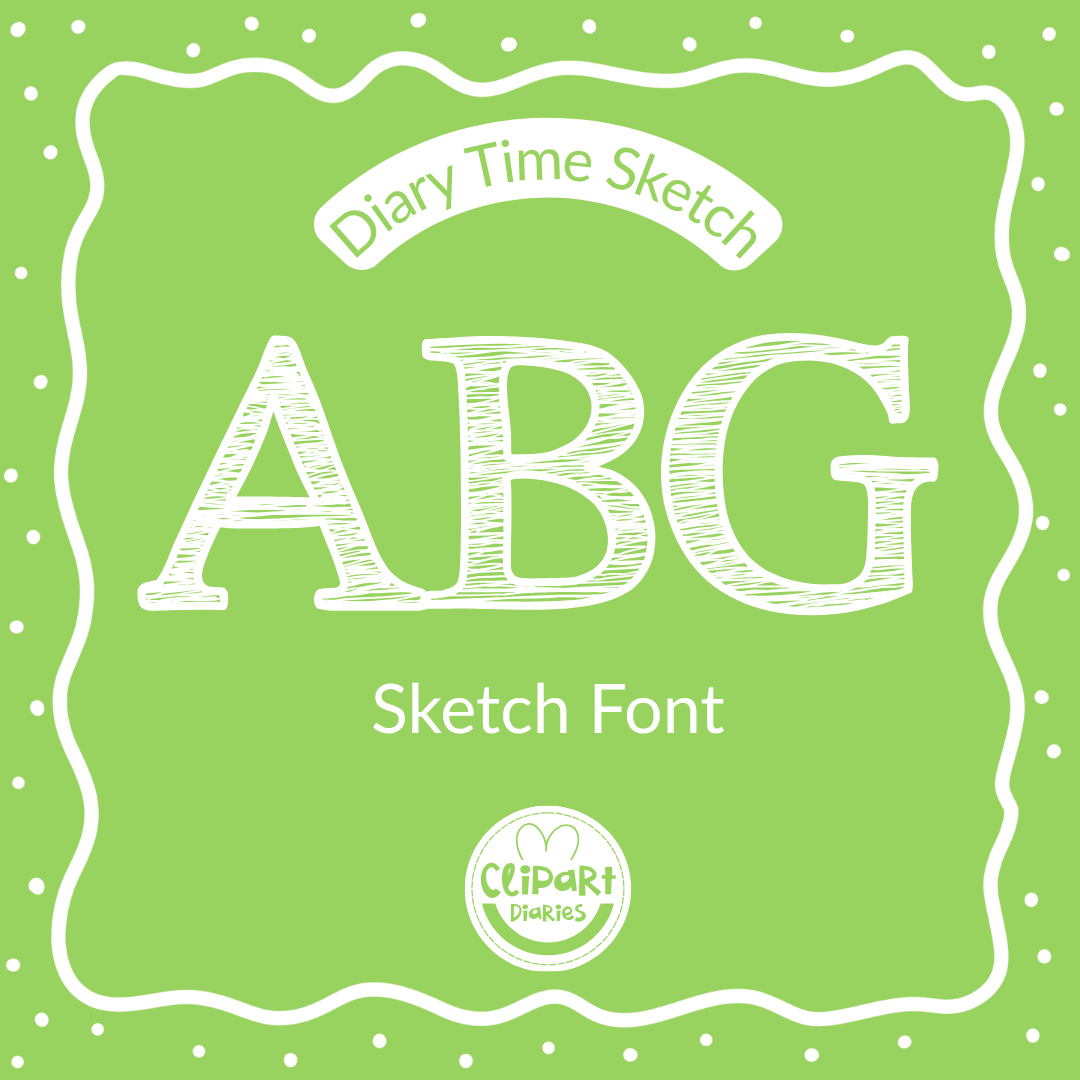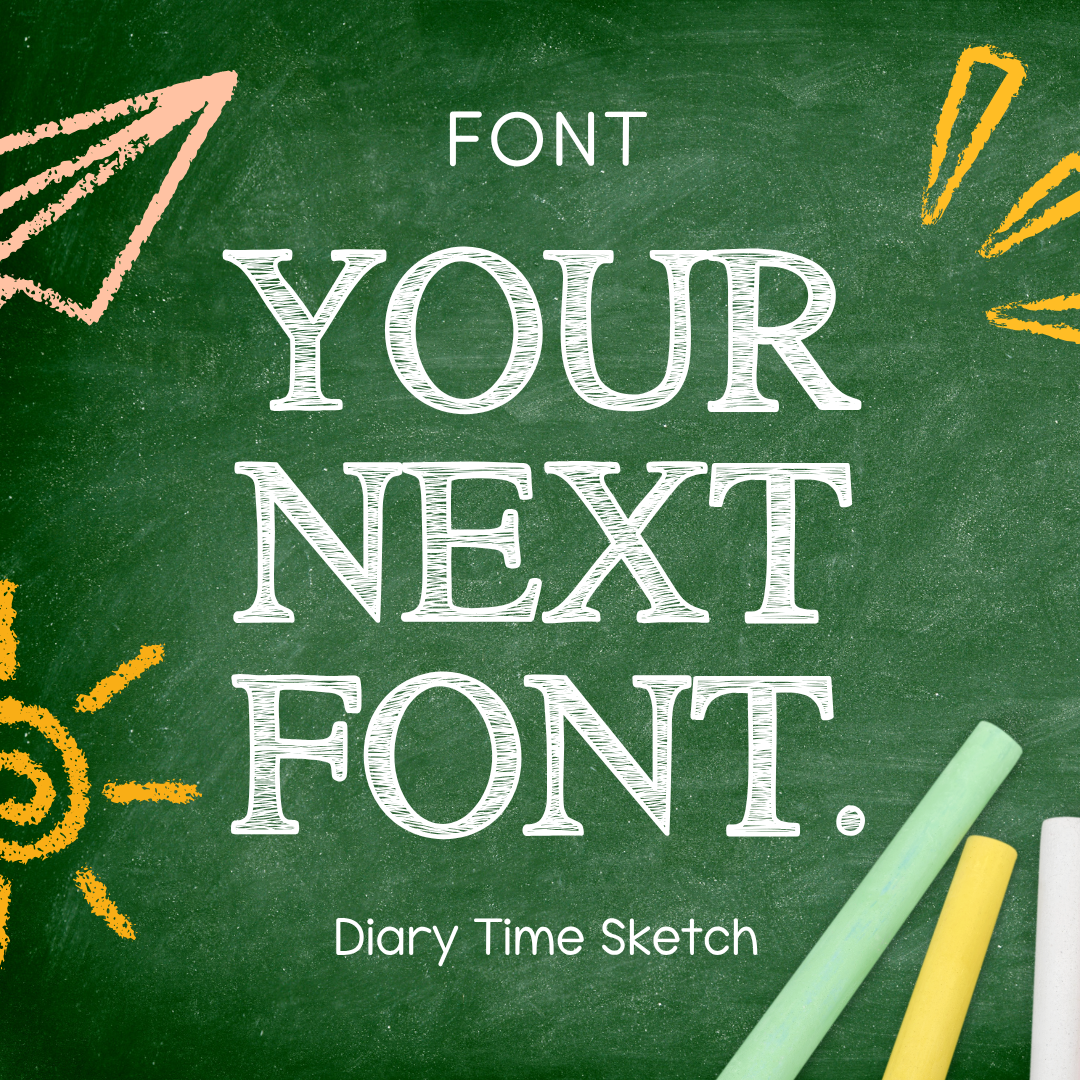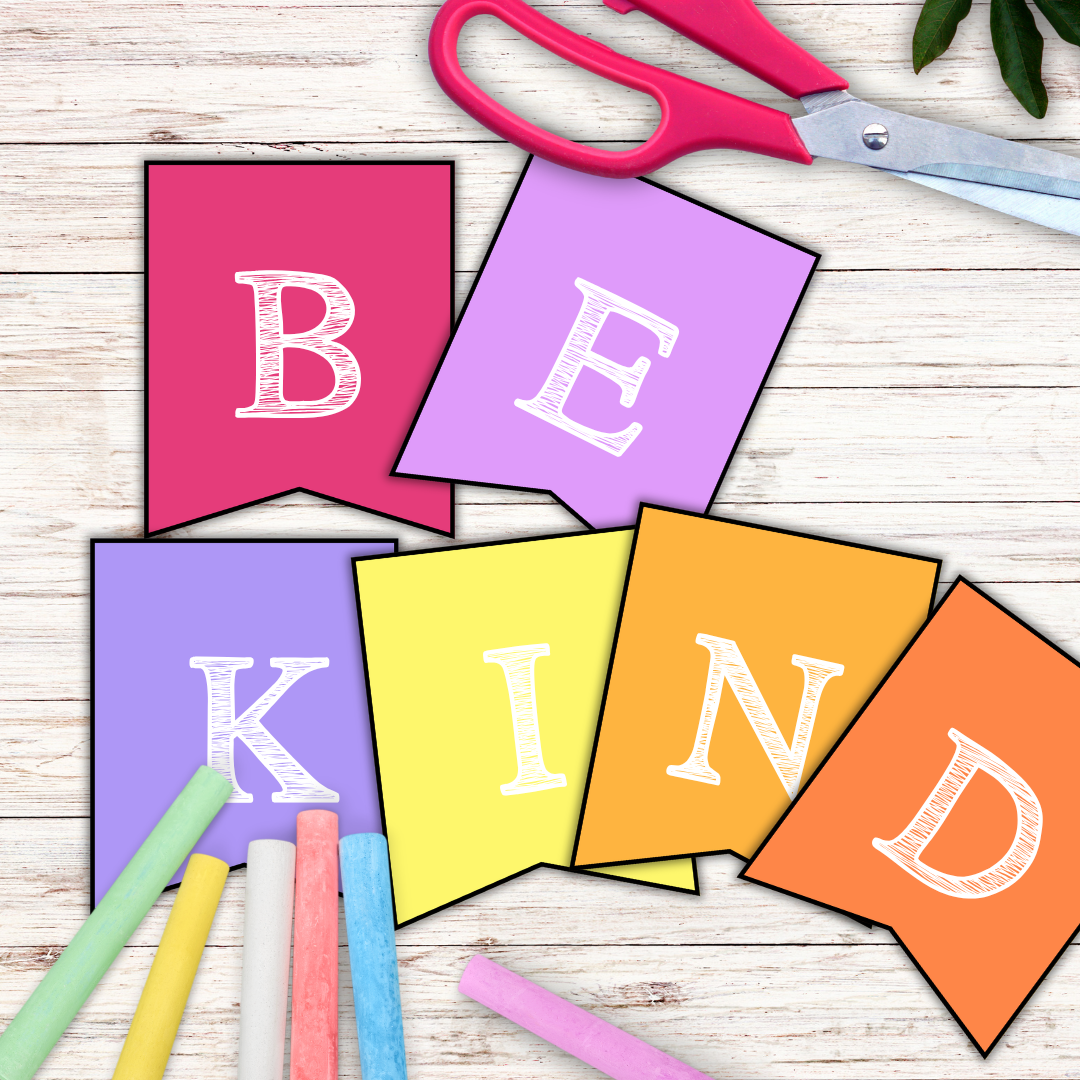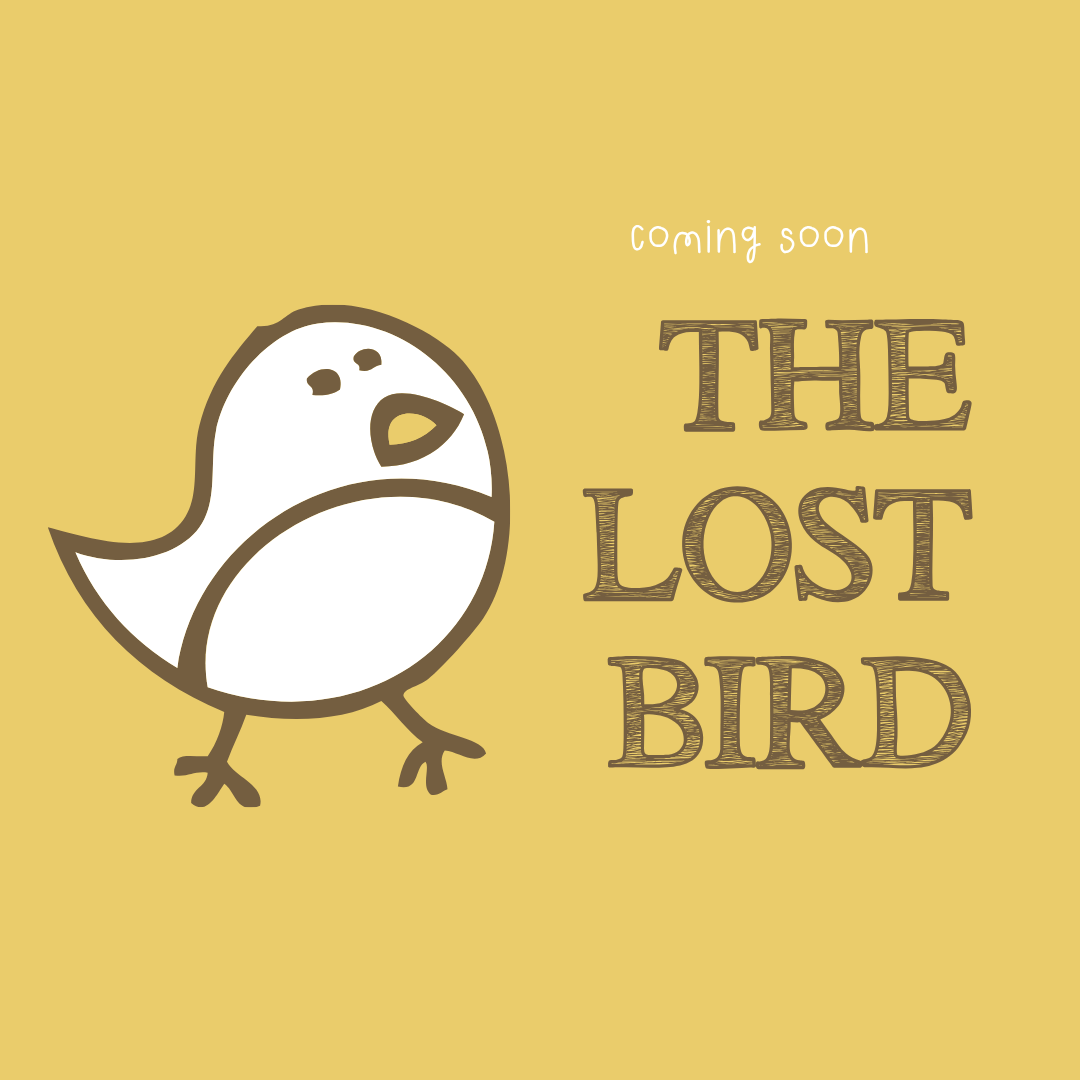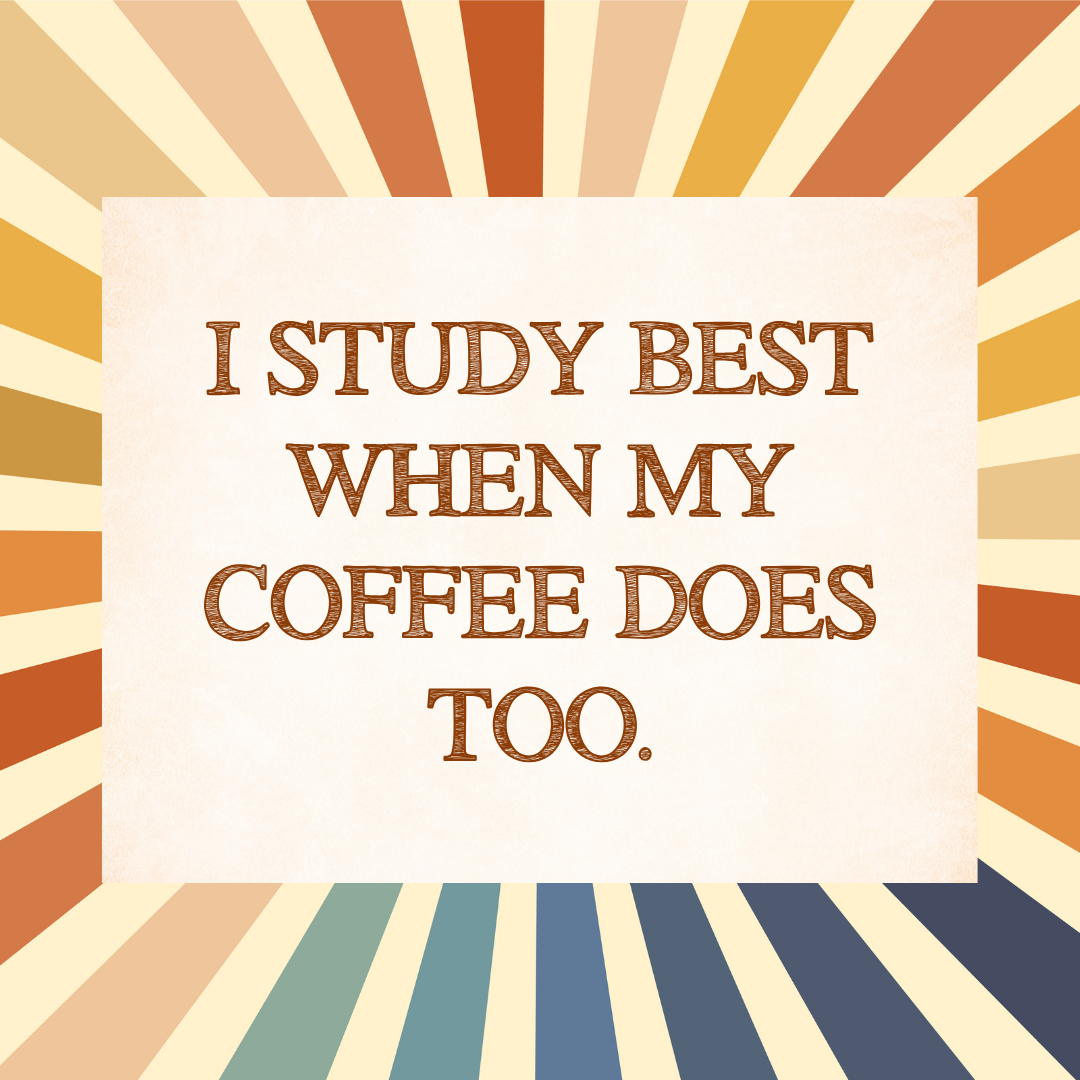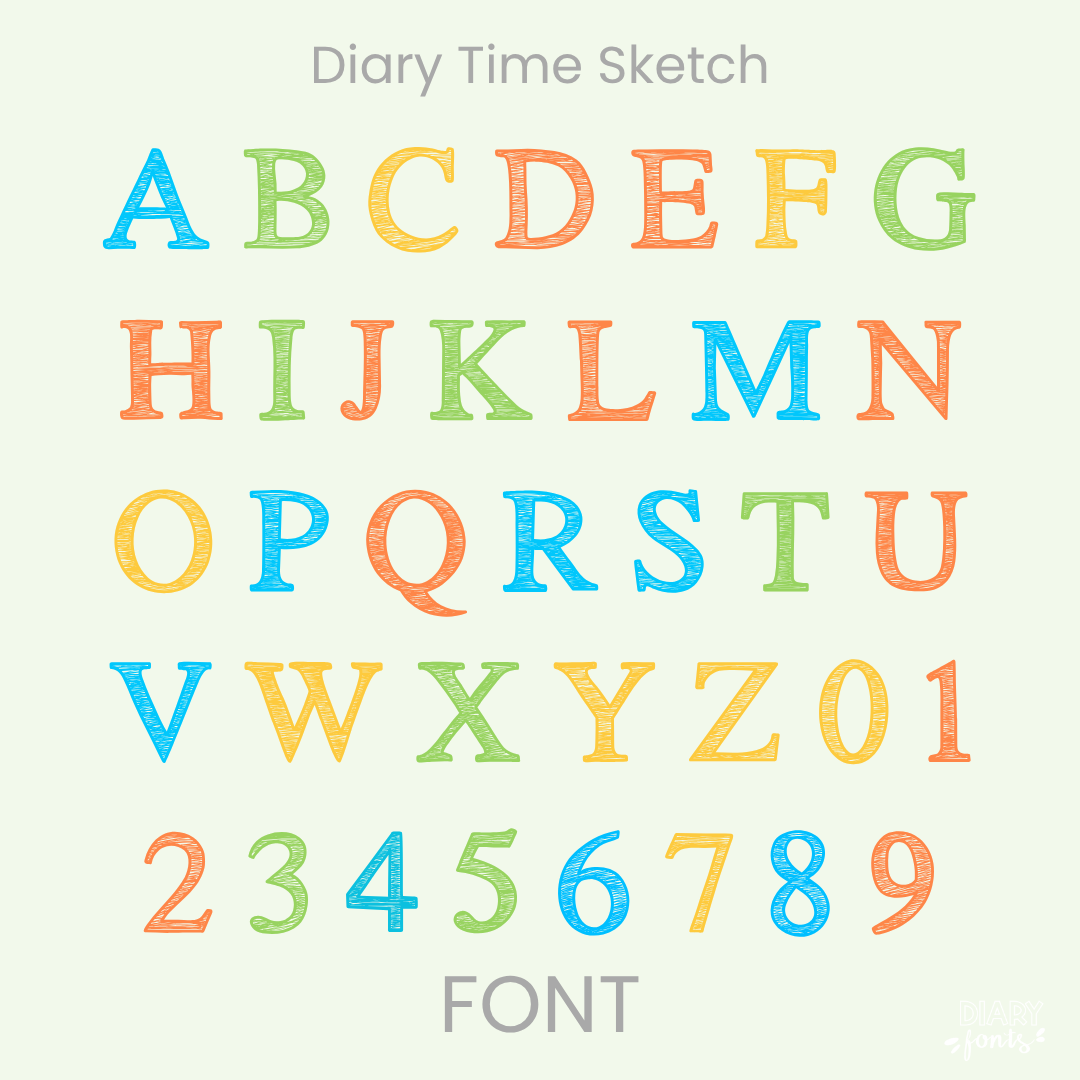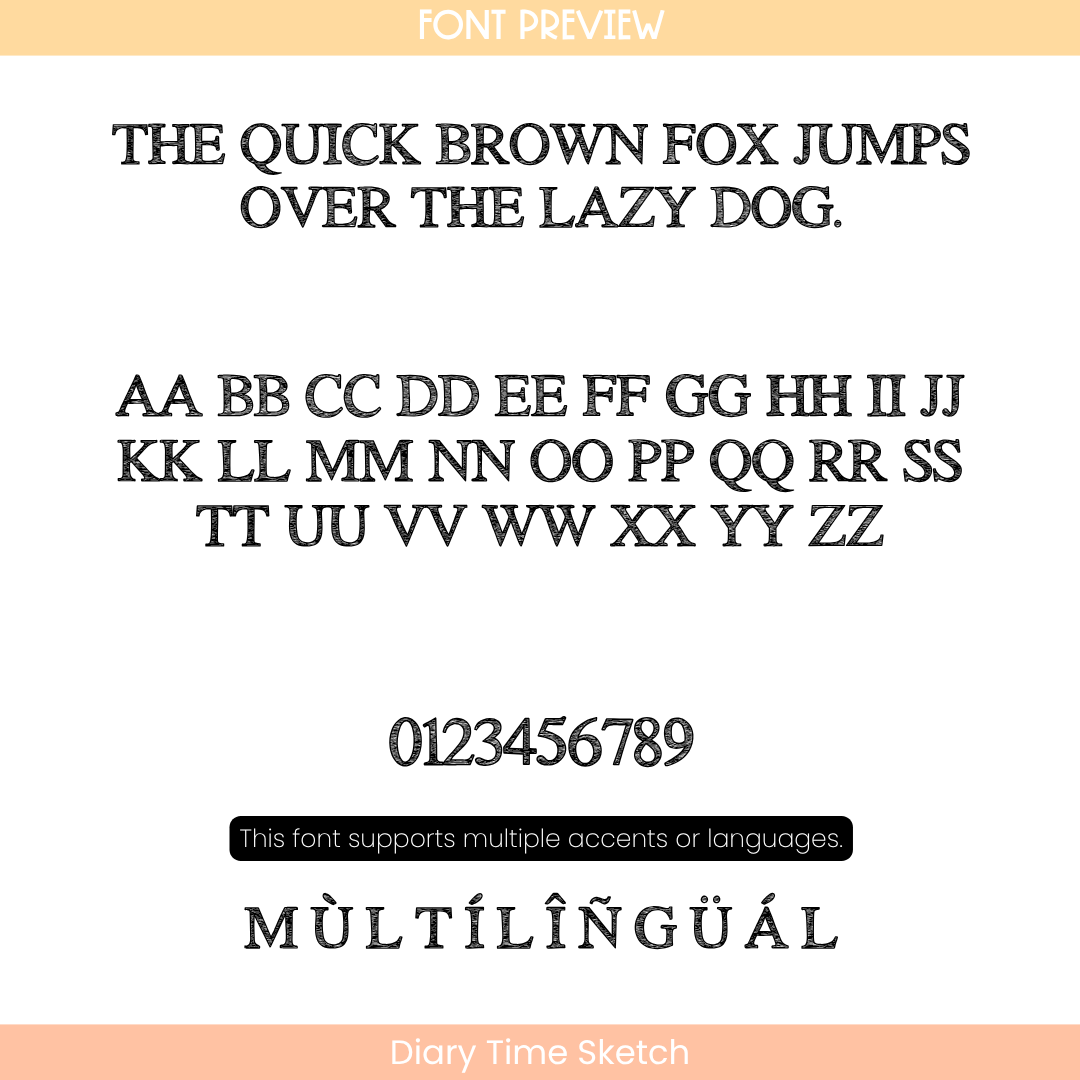
If you’ve been searching for a sophisticated yet playful teacher font to add a dash of vintage scholastic charm to your layouts, Diary Time Sketch is about to become your new absolute favorite design tool. This typeface takes the traditional, structured geometry of a classic book serif and fills it with a gorgeous, hand-scribbled sketch texture. Standing tall, neat, and uniform along the baseline, its beautifully detailed design cuts right through the background noise—giving your text a styled, academic look that your sweet students can read and track with absolute ease.
It is an absolute dream choice for typing up history lessons, classroom library headers, morning meeting message boards, and elegant presentation slide titles where you want a cozy, traditional classroom vibe. Inside the download, you’ll get a full set of sketched serif uppercase and lowercase print letters, clean matching textured numbers, and multi-accent markings for complete multilingual support. It drops right into Canva, MS Office, or Adobe on your desktop, and pairs beautifully with Procreate and GoodNotes on your iPad. Whether you’re prepping weekly printables for your own sweet classroom or designing a fresh new commercial-use product line for your online teacher shop, this textured display heading font adds a touch of confident, warm style to your creative toolkit.